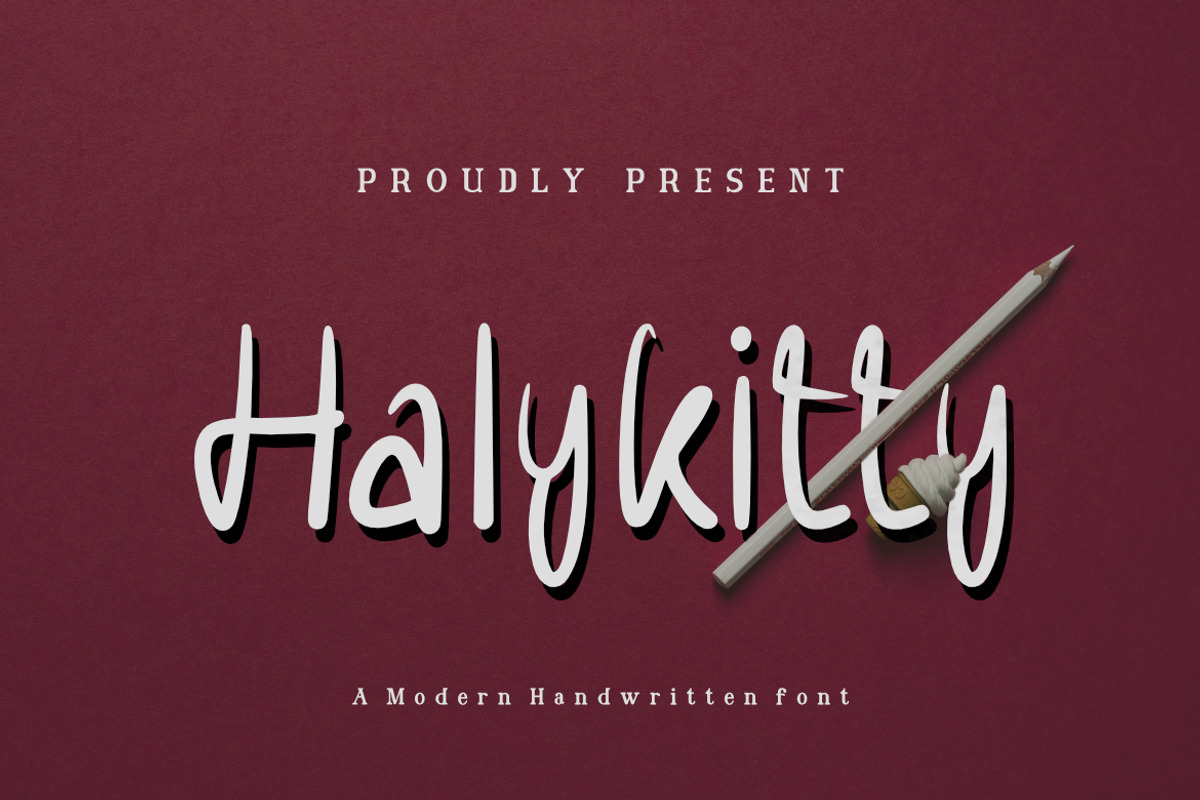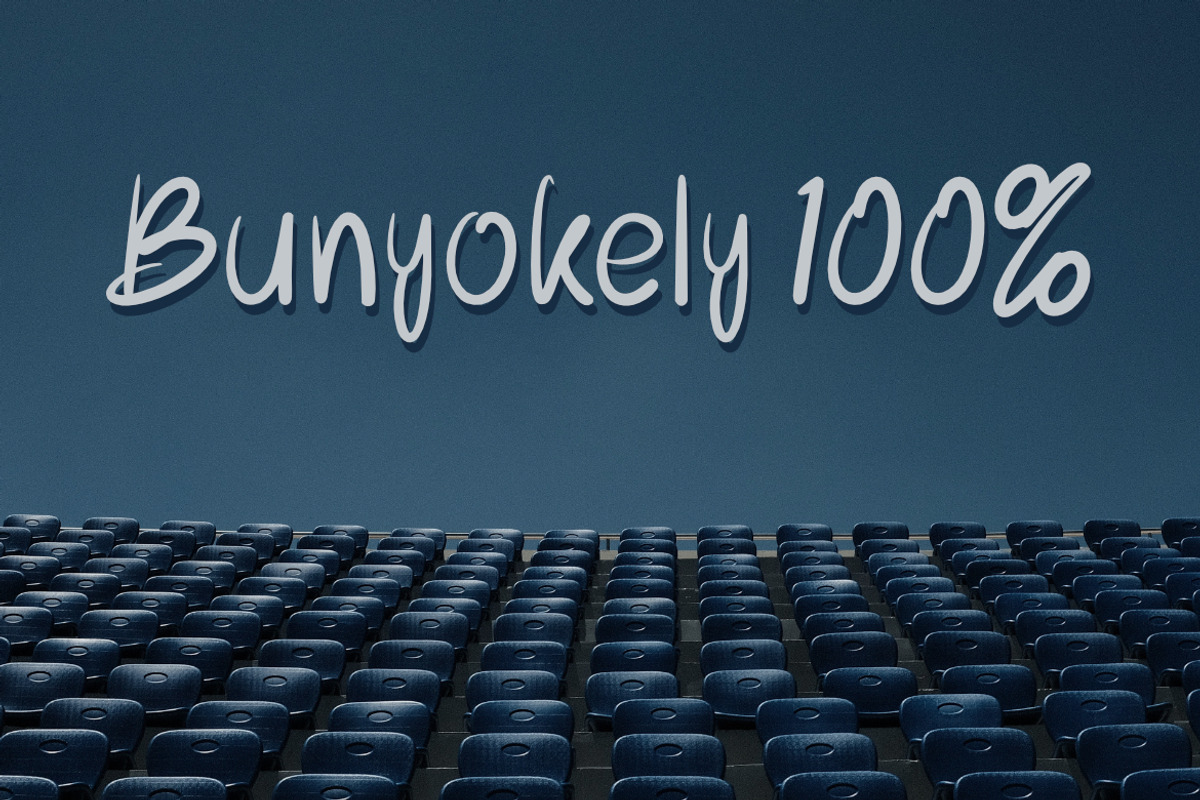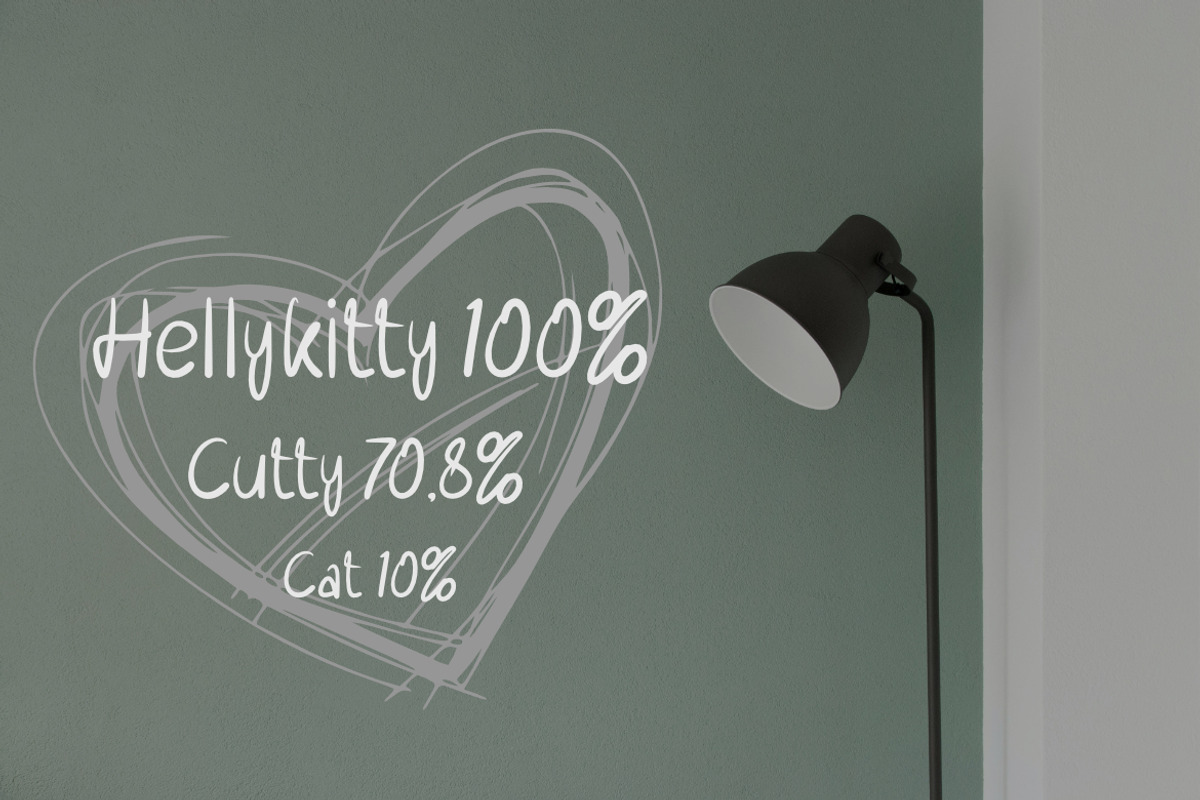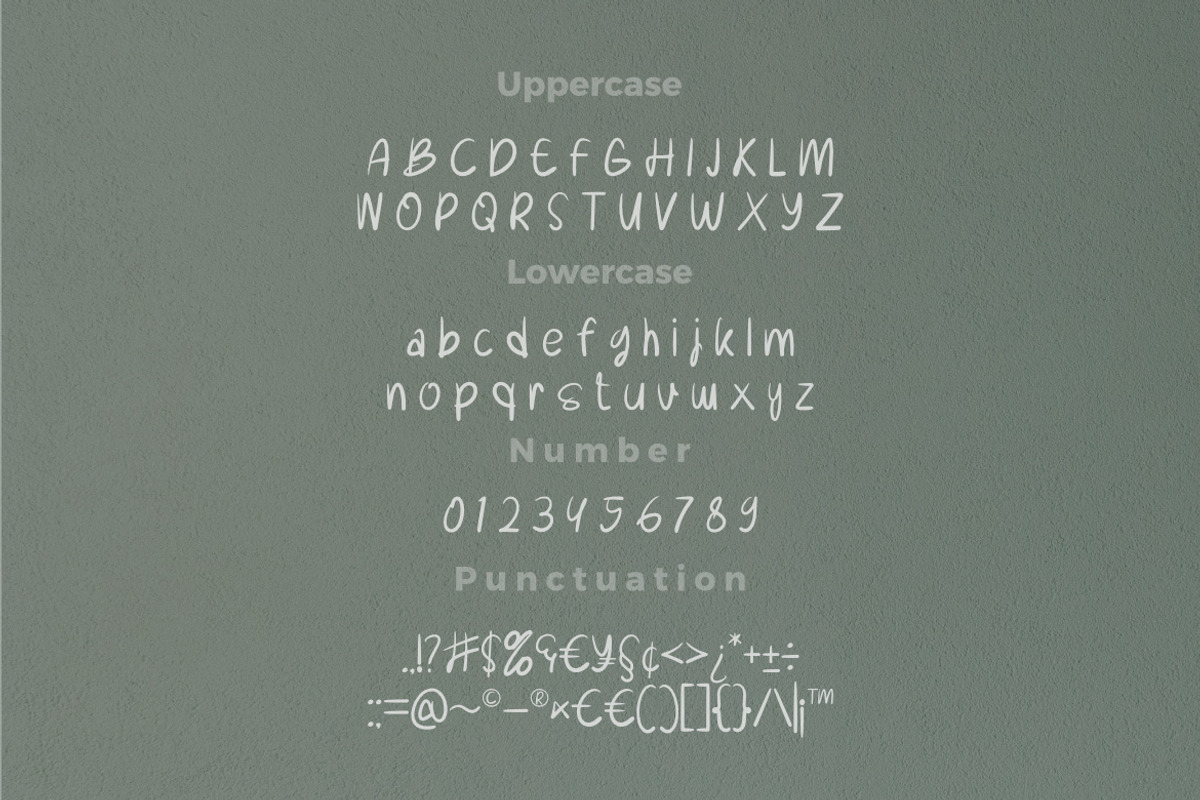
Halykitty
Halykitty Handwritten Font, inspired by quote typography. This font is made with a high premium quality level which you can use as flyers, quotes, posters, banners, packaging, merchandise, logotypes and much more.